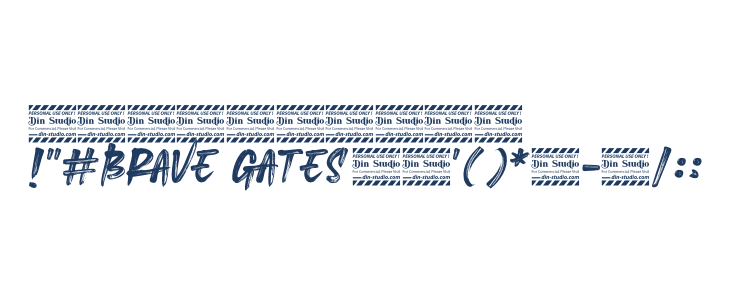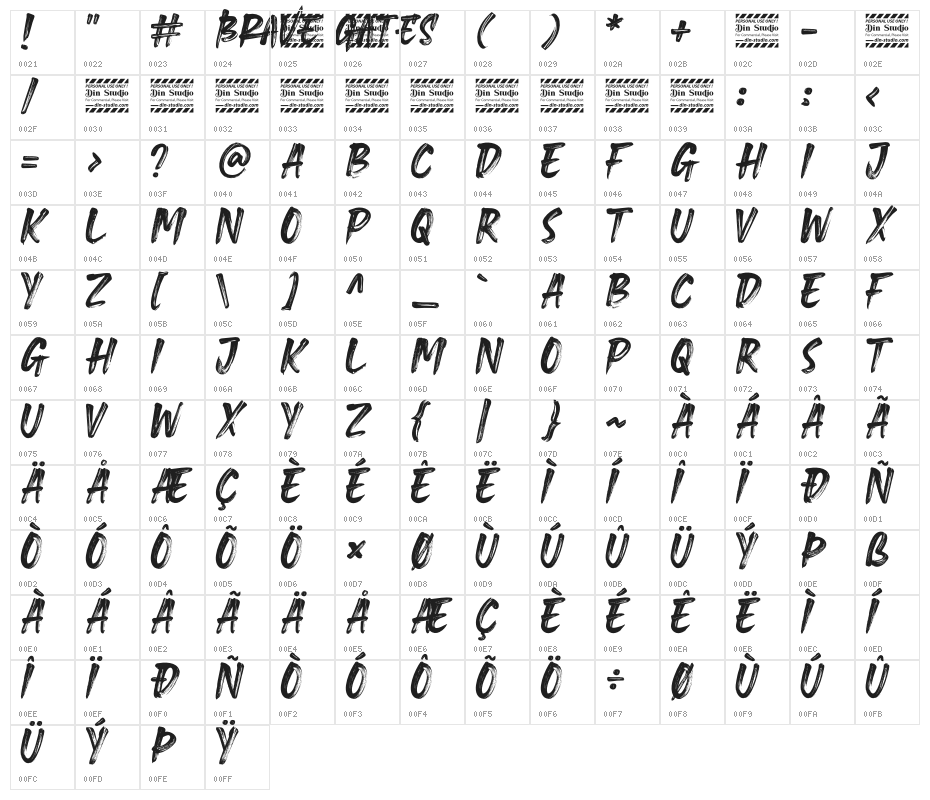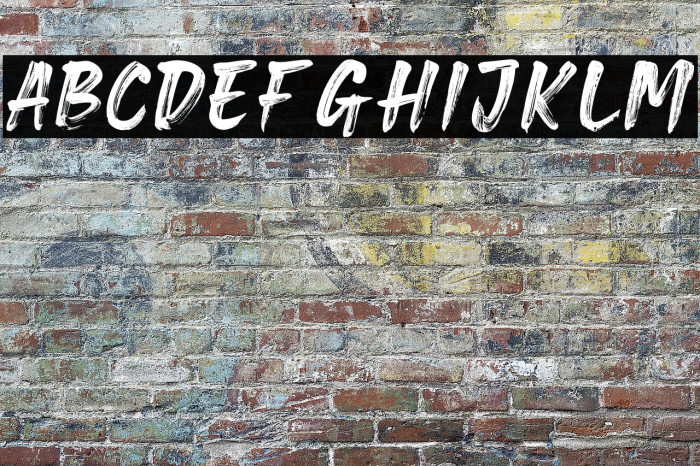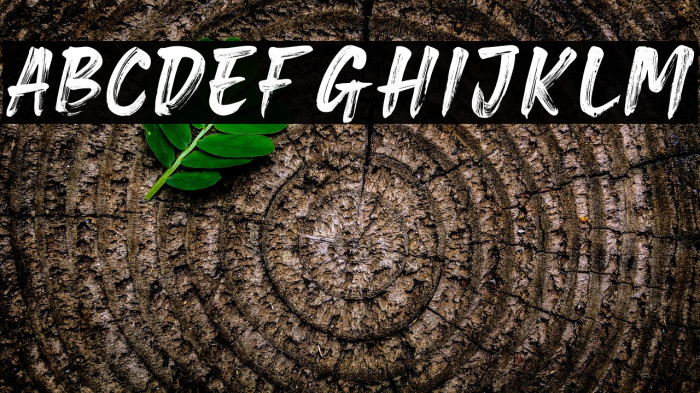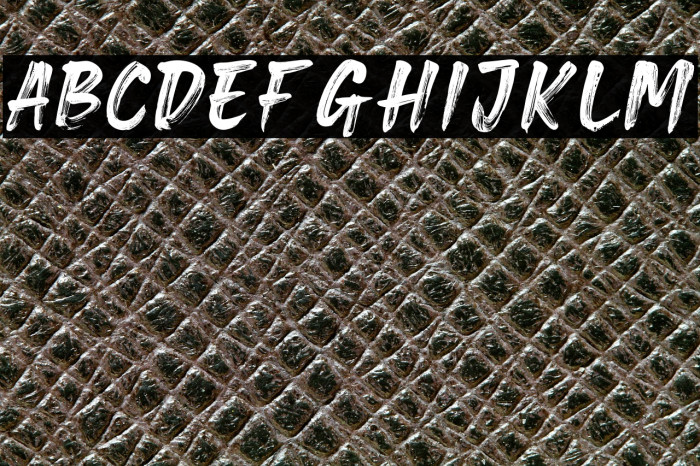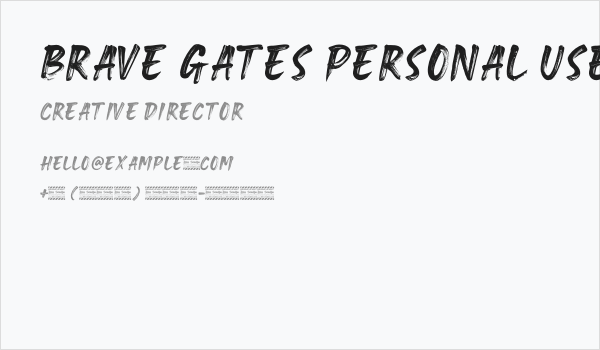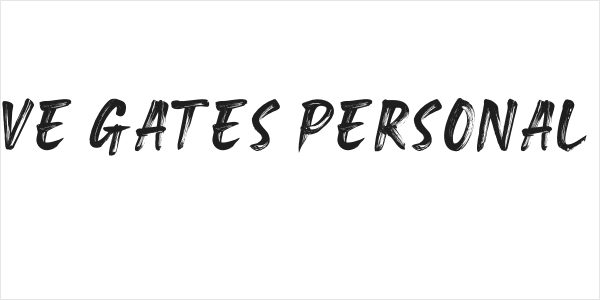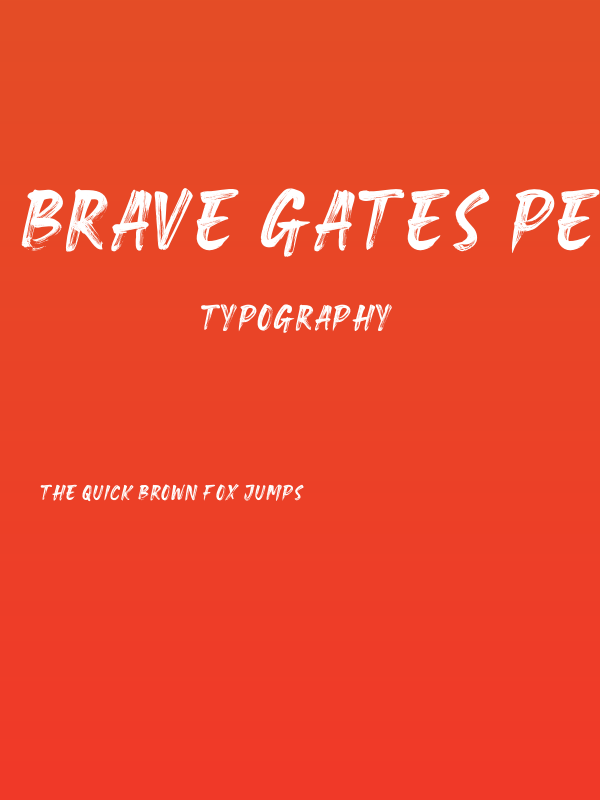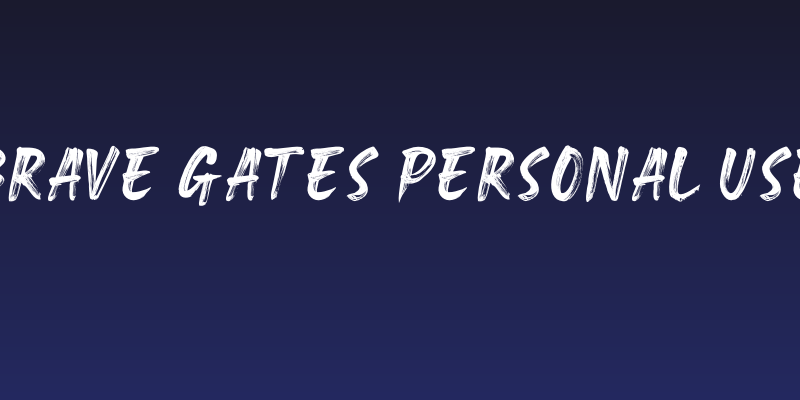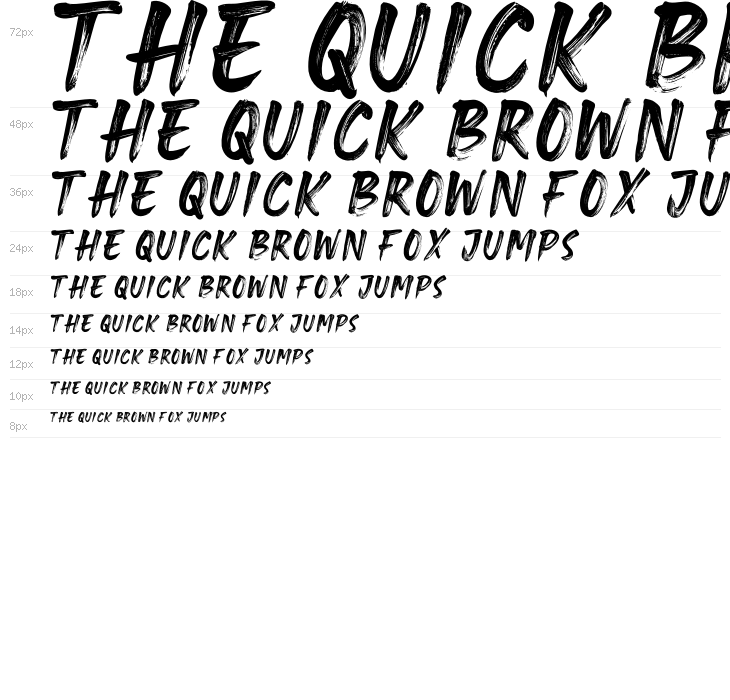
Brave Gates Personal use Font
Brave Gates Personal use Description
This font features a bold, brush-stroke style that exudes energy and dynamism. The letters are crafted with a rough, textured appearance, giving them a hand-painted look. The uppercase and lowercase letters maintain a consistent style, with a slight slant that adds a sense of movement. The numbers and special characters are designed to match the overall aesthetic, ensuring a cohesive appearance across all text. This font is perfect for projects that require a bold statement, such as posters, headlines, or branding materials. Its unique style makes it stand out, capturing attention with its artistic flair.
| Proposed Projects | Ideal for posters, headlines, branding, and any project needing a bold, artistic touch. |